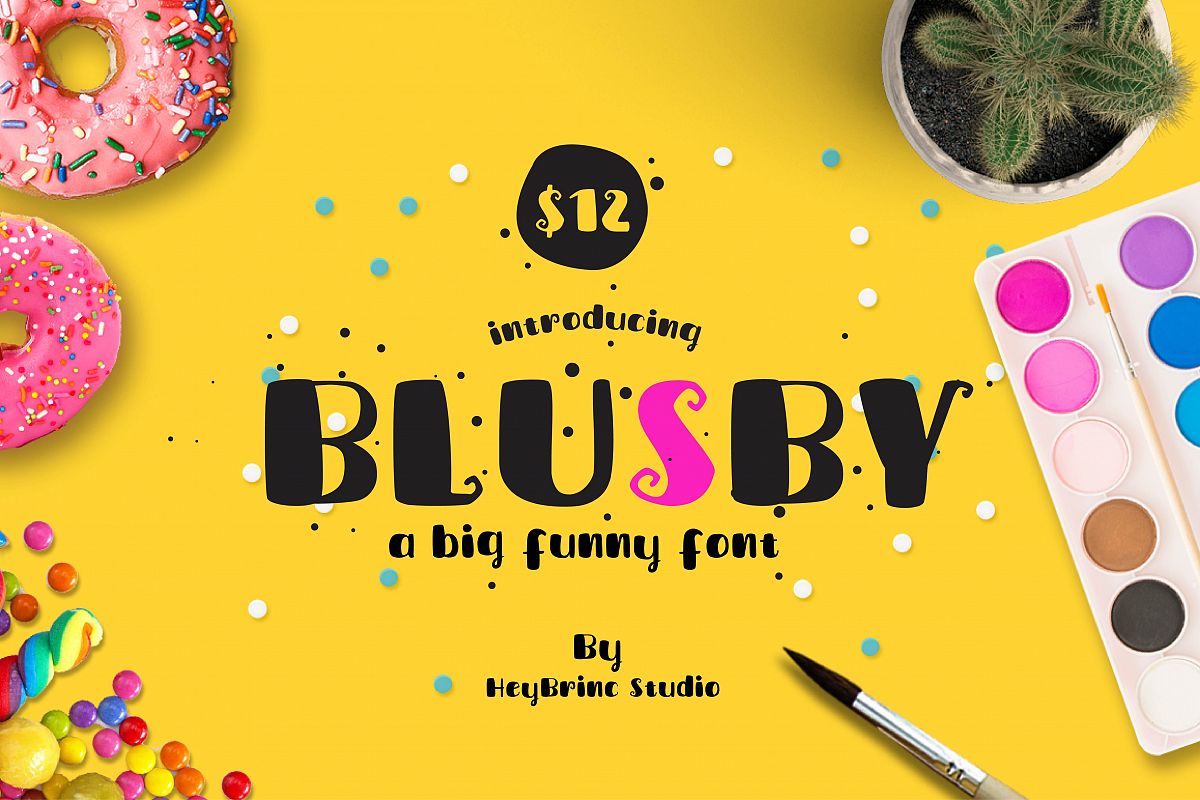
BLUSBY
Introducing a new font from HeyBrinc Studio. BLUSBY is a big funny font which adds more personality to your work.
Great for children products, craft designs, instagram quote posts, greeting cards, print products and so on.